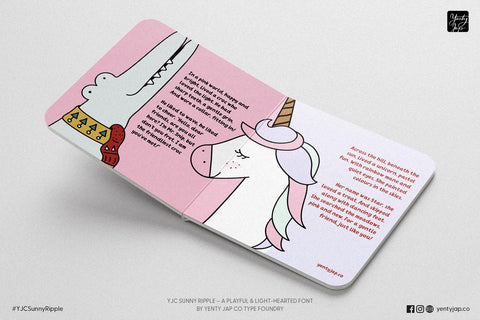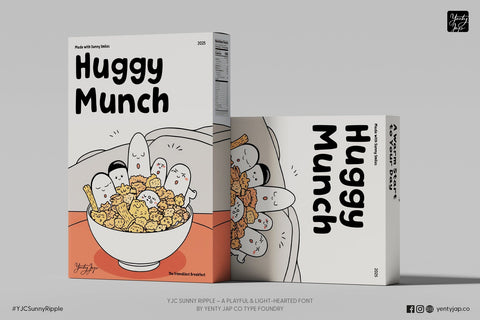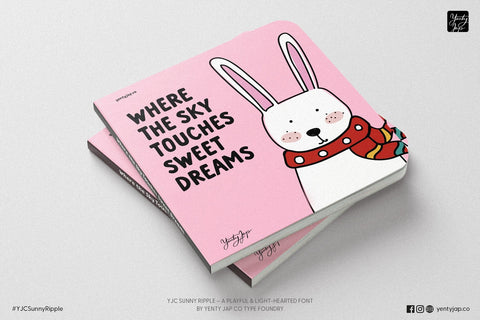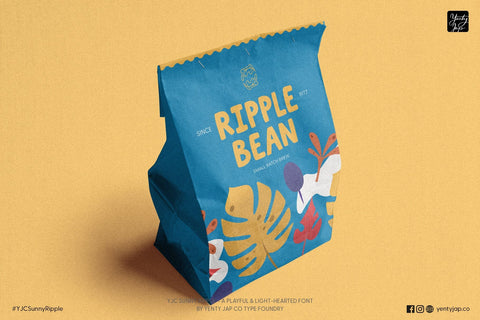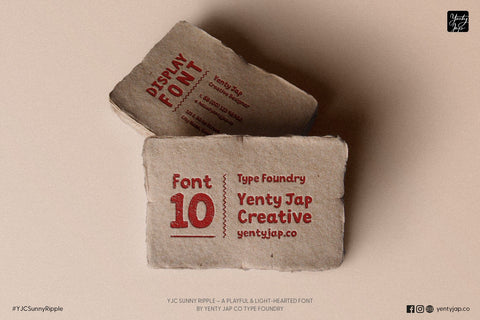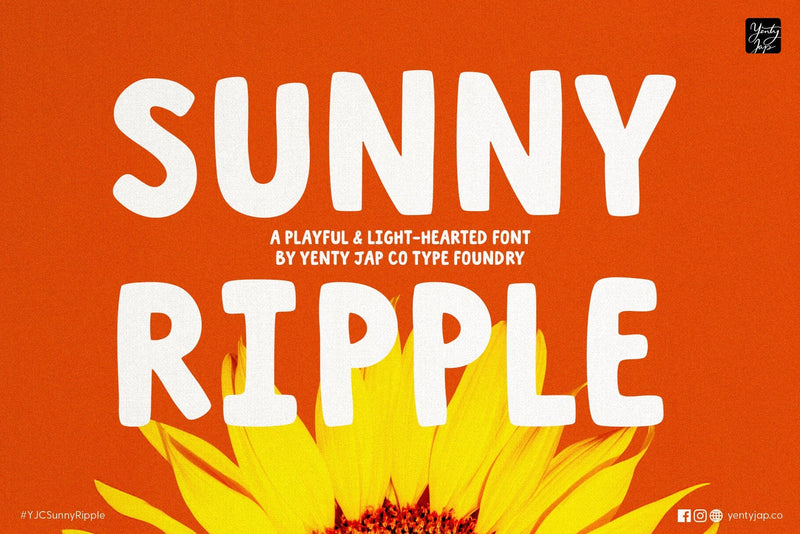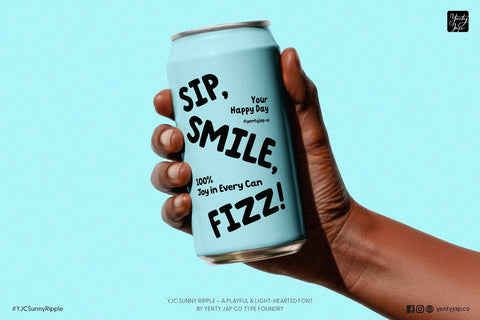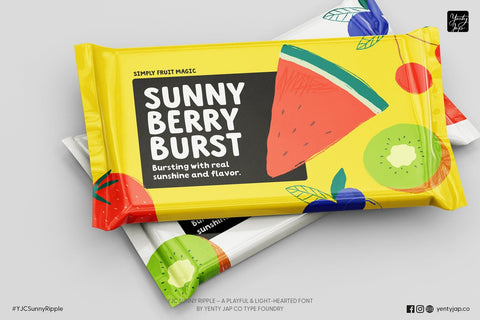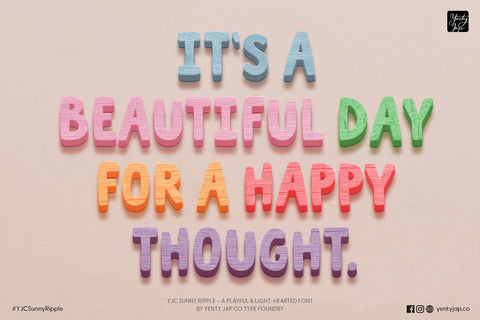
YJC Sunny Ripple - The Handcrafted Hug Font
YJC Sunny Ripple is a uniquely charming display font designed to bring warmth, personality, and an authentic touch of human connection to your projects. With its friendly, rounded forms and deliberately uneven, "wobbly" baseline, this typeface feels less like a sterile digital creation and more like a cherished doodle, perfectly embodying the spirit of a sincere, handwritten note.
A Story in Every Stroke
The character of YJC Sunny Ripple is built around our brand voice: playful but sincere, light-hearted, and always a little hug in a sentence. Each letter features a generous, bold weight and soft terminals, making it highly readable while maintaining its whimsical nature. It’s a font that doesn't just display words—it tells a story and connects with your audience instantly.
Why Choose Sunny Ripple?
- Hand-Drawn Charm: Its distinctive, bouncy style adds immediate personality and a sense of effortless fun to any design.
- High Impact Display: The bold weight ensures the font stands out, making it perfect for headlines, logos, and social media graphics where you need to communicate well and catch the eye.
- Playful Versatility: It's equally at home on a child's storybook cover, a gourmet coffee package, a handmade goods label, or an uplifting poster.
Ideal Usage & Achieved Tone
YJC Sunny Ripple is your go-to typeface when your message needs to be friendly, approachable, and truthful.
Packaging & Food:
- Best For: Cereal boxes, snack bars, coffee labels, artisanal goods.
- Tone Achieved: Homemade, Trustworthy, Delicious.
Children's Media:
- Best For: Picture book titles, educational materials, branding for toys.
- Tone Achieved: Whimsical, Engaging, Gentle.
Lifestyle & Social:
- Best For: Instagram quotes, brand slogans, event flyers, motivational graphics.
- Tone Achieved: Uplifting, Genuine, Energetic.
Branding:
- Best For: Logos for small businesses, craft brands, or personal blogs.
- Tone Achieved: Authentic, Unique, Memorable.